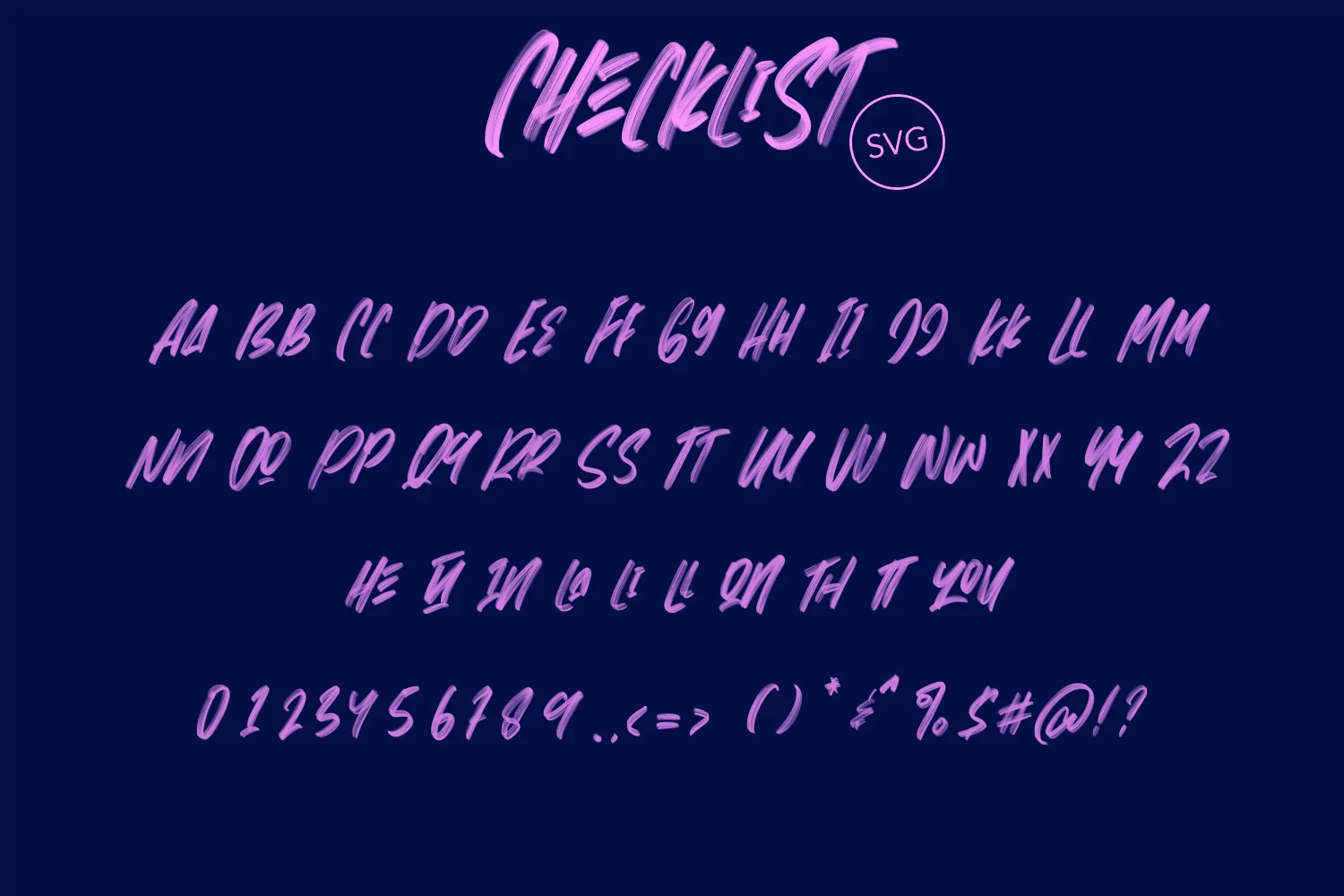
Checklist - Fancy SVG Font that contain lowercase, uppercase, symbol, and also support multi language. There’s a lot ligatures in this font. This Font also comes with ligatures, alternates and many more. this font suitable for fashion, branding, catalog and other design what you want.
Checklist